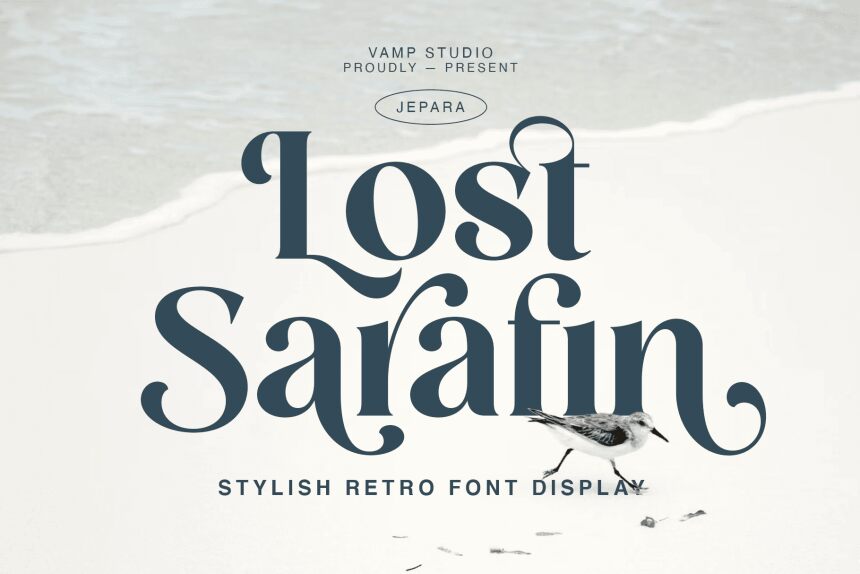
Lost Sarafin Regular
Lost Sarafin, a captivating serif font crafted by Vampstudio, emanates a timeless elegance with its intricate detailing and refined aesthetic. This font's distinctive features, such as the graceful curves and subtle serifs, lend an air of sophistication and refinement to any design. Whether used for editorial layouts, high-end branding, or elegant invitations, Lost Sarafin's versatility allows it to seamlessly blend classic charm with a modern sensibility.